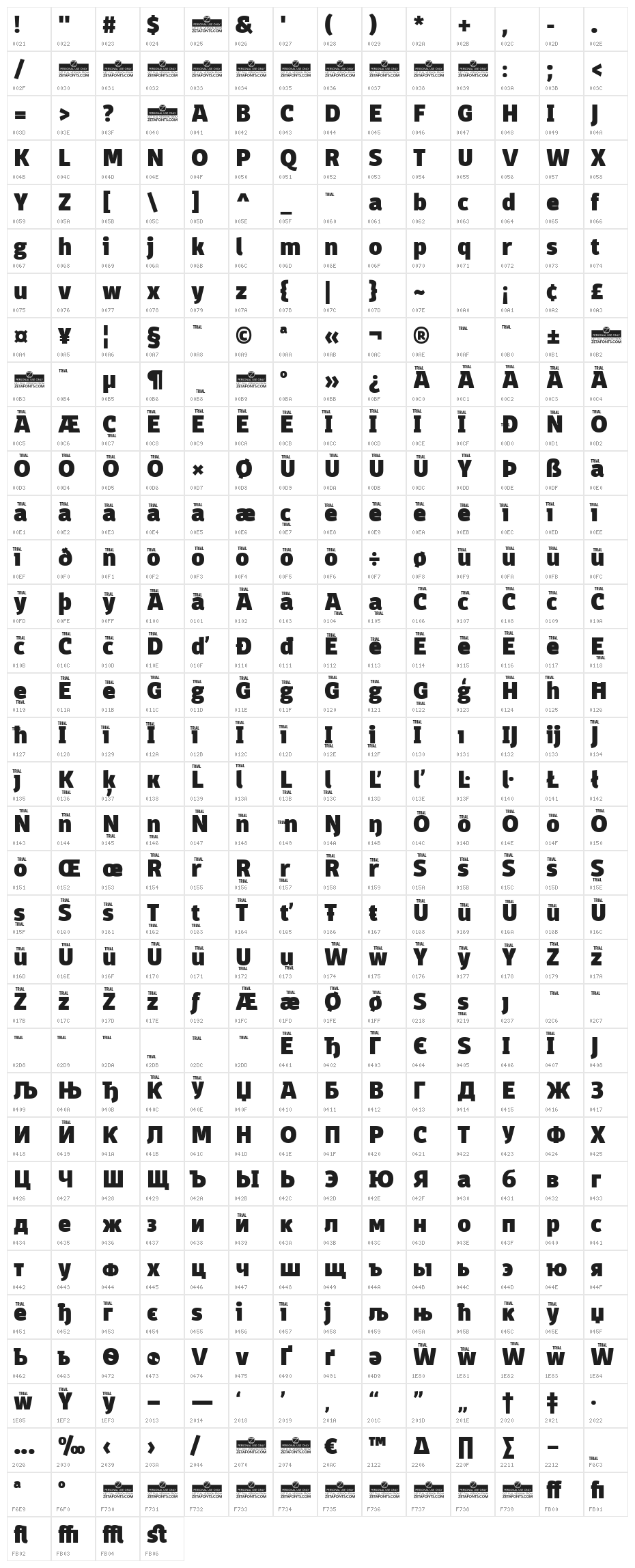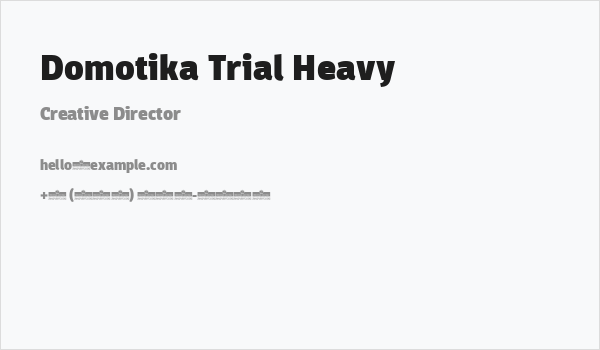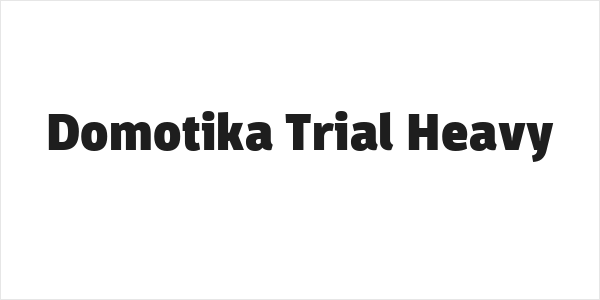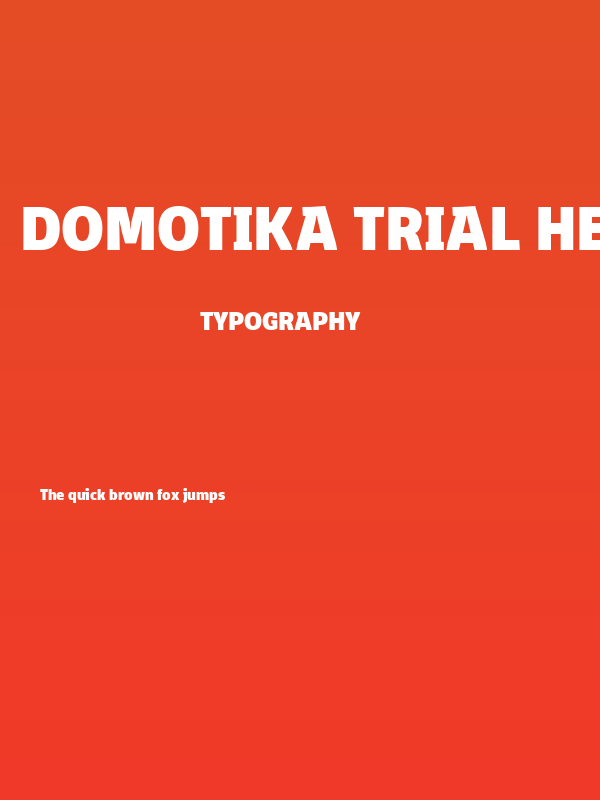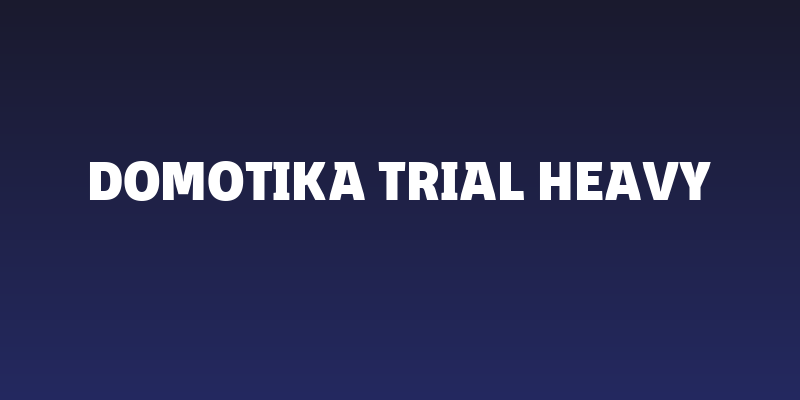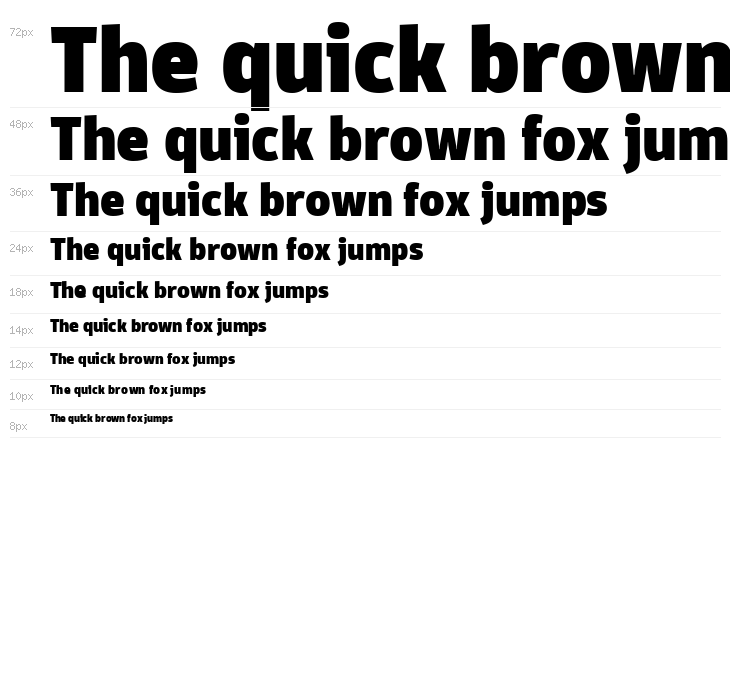
Domotika Trial Heavy Font
Domotika Trial Heavy Description
This font exhibits a bold and commanding presence with its heavy weight and strong geometric shapes. The uppercase letters are particularly striking, with a uniform height and width that convey a sense of stability and confidence. The lowercase letters maintain this robust style, ensuring readability while adding a touch of modernity. The numerals are clear and consistent, matching the overall bold aesthetic. Special characters are well-integrated, maintaining the same weight and style as the alphanumeric characters. This font is ideal for making a strong visual impact.
| Proposed Projects | Ideal for headlines, posters, branding, and any project requiring a bold statement. |